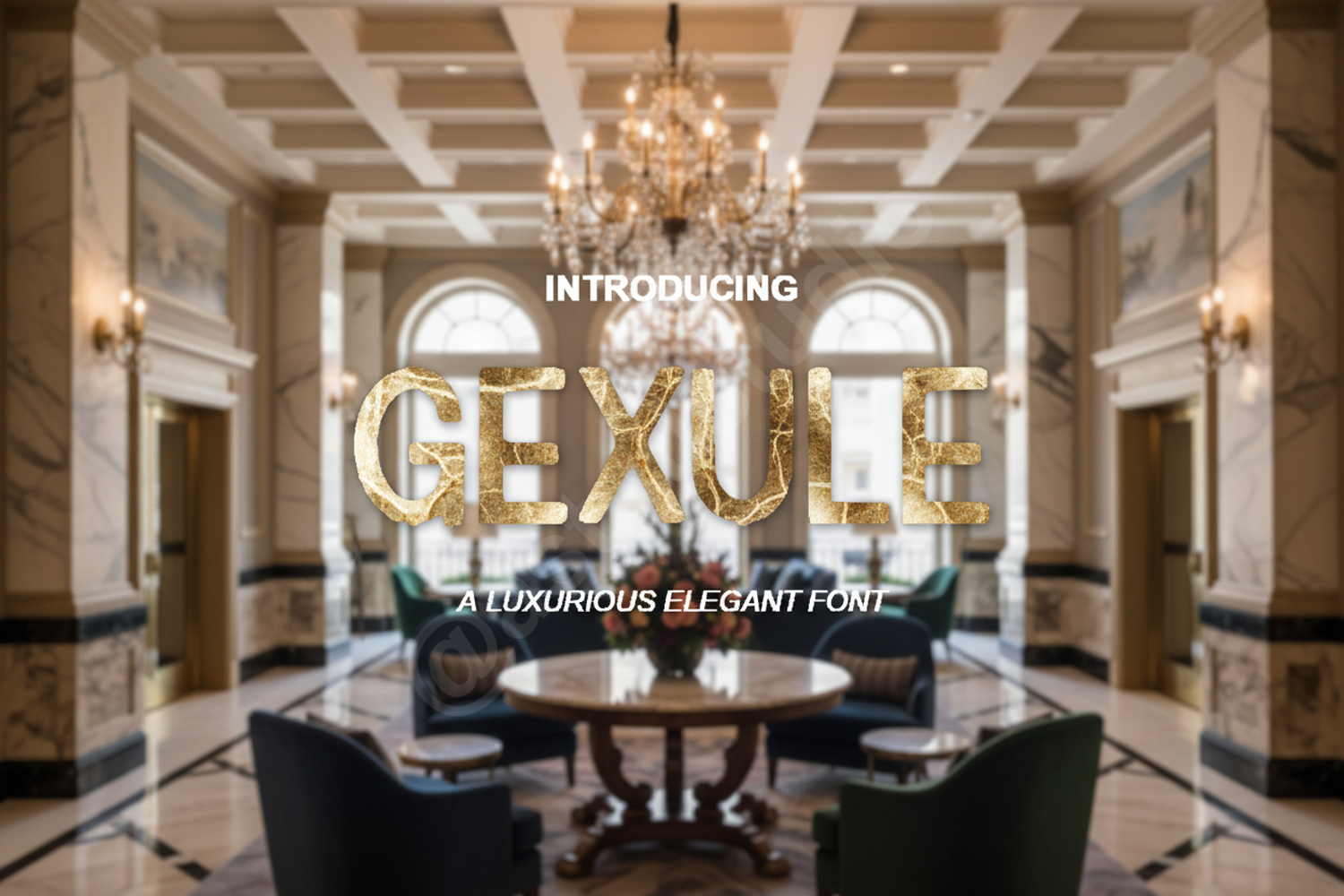
Gexule - Modern Minimalist Display Serif
Gexule
Gexule is a premium display serif font designed to bring a touch of sophistication and modern elegance to your creative projects. With its clean lines, balanced proportions, and unique character shapes, Gexule stands out as a versatile choice for designers who demand high-quality typography. This font seamlessly blends classic serif foundations with a contemporary aesthetic, making it a timeless addition to your digital toolkit.
- Luxury Branding and Identity: Create memorable logos and brand marks that exude class.
- Editorial Design: Perfect for high-end magazine layouts, headlines, and subheadings.
- Wedding and Event Stationery: Elevate invitations, place cards, and menus with refined style.
- Product Packaging: Add a premium feel to labels, boxes, and retail tags.
- Social Media Content: Craft eye-catching quotes and promotional graphics that capture attention.